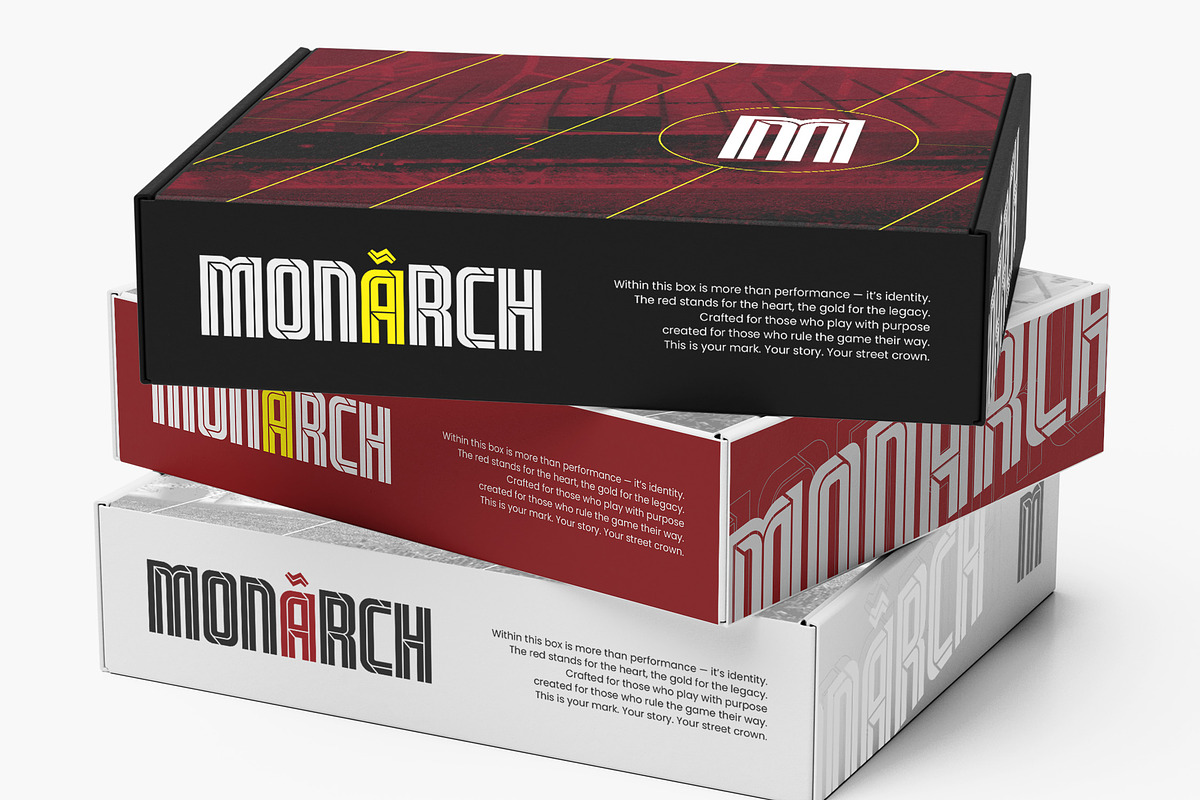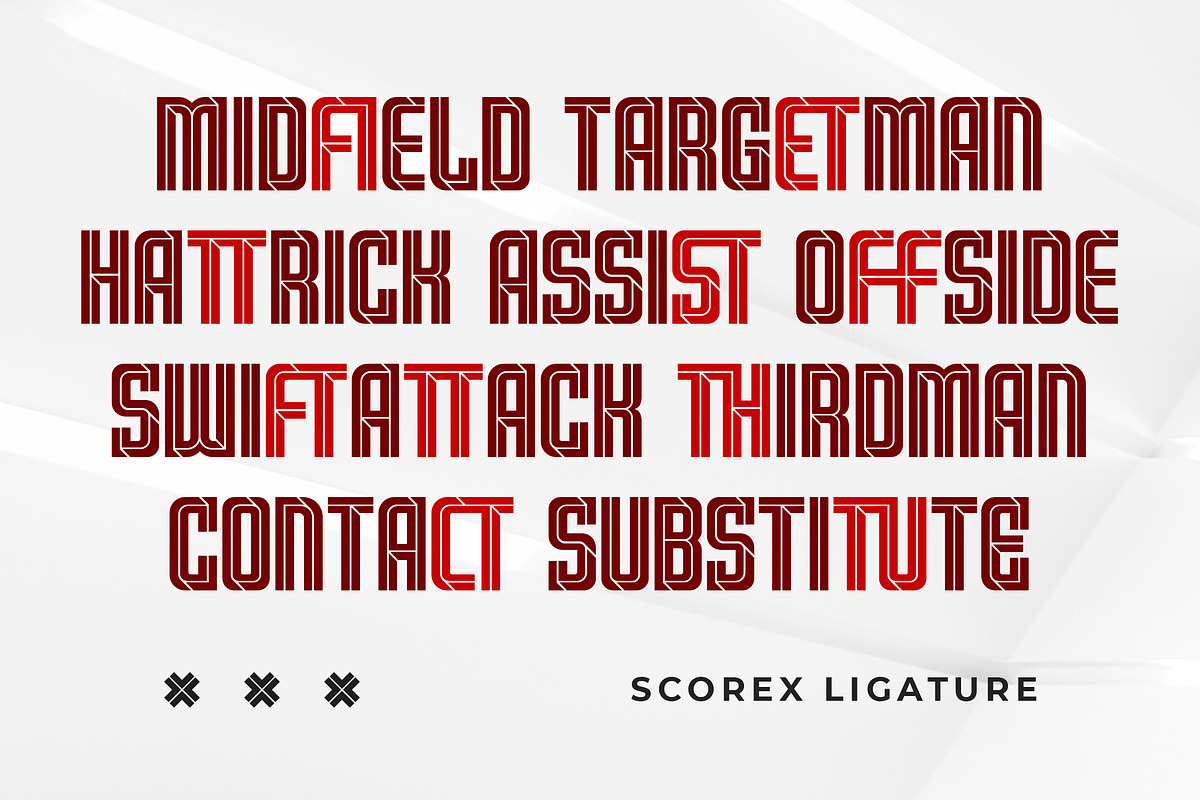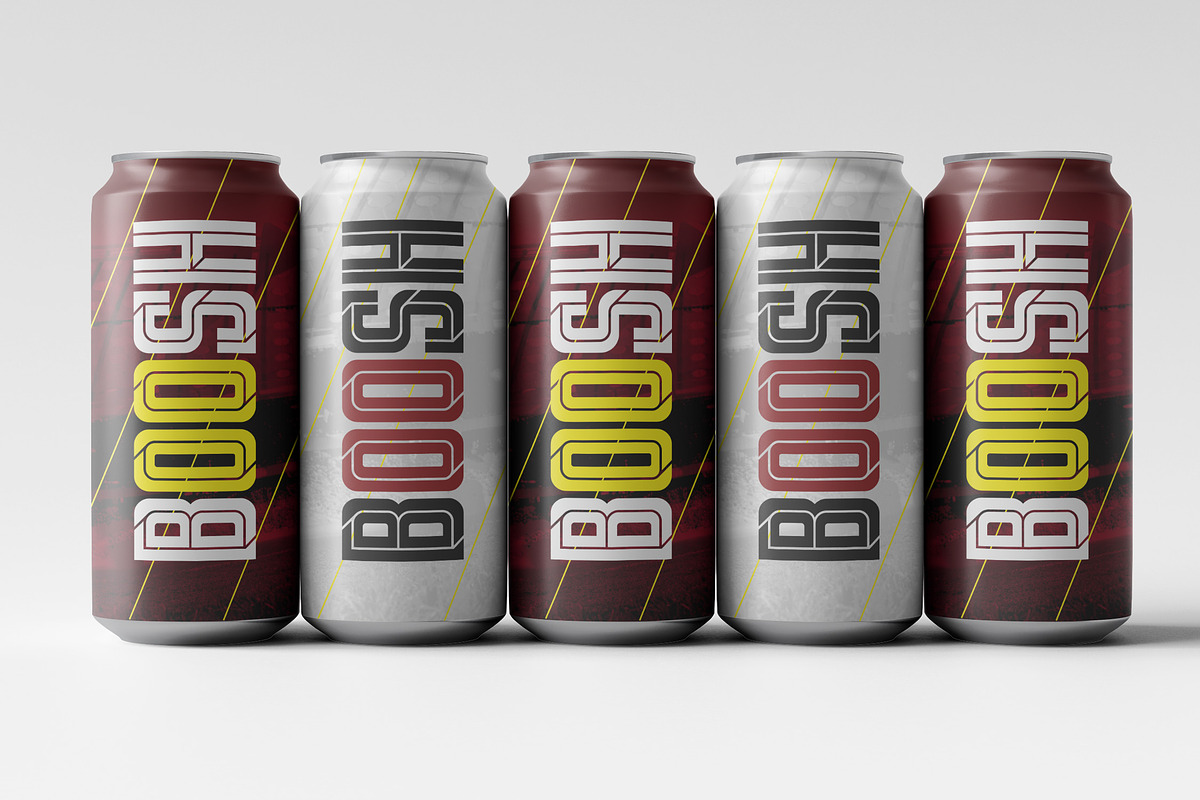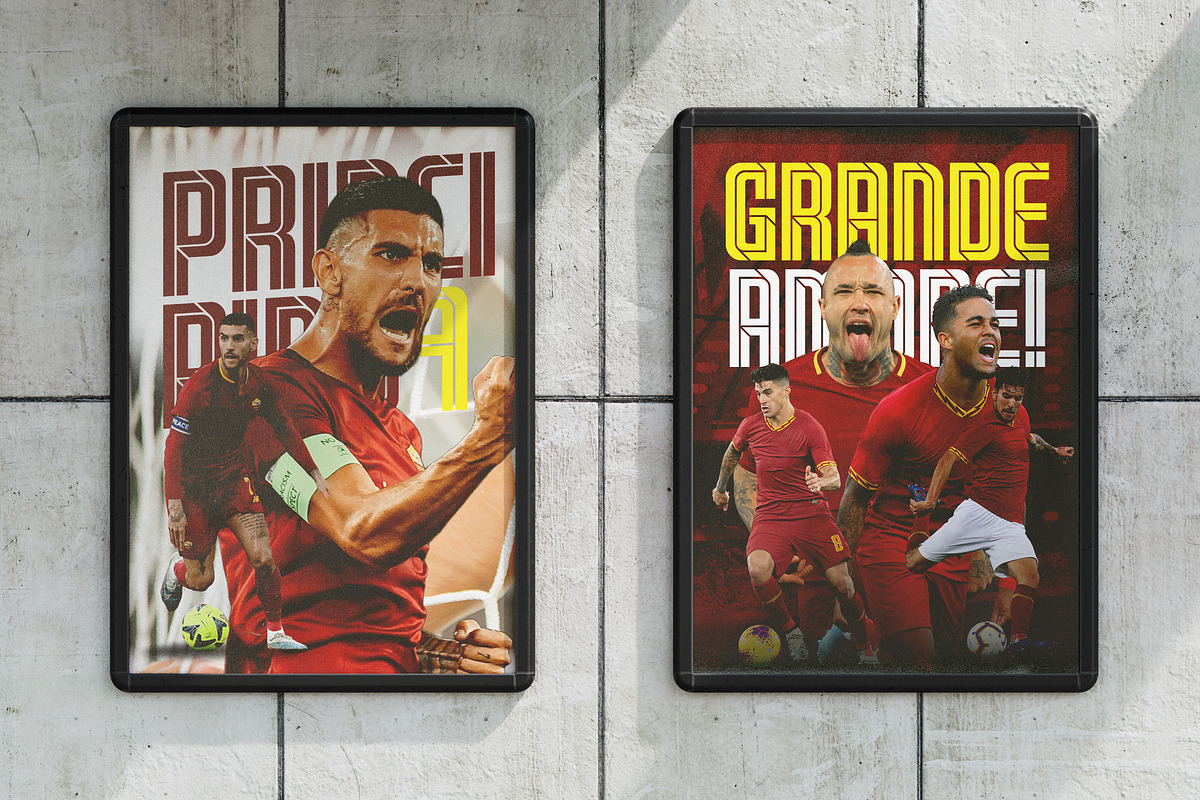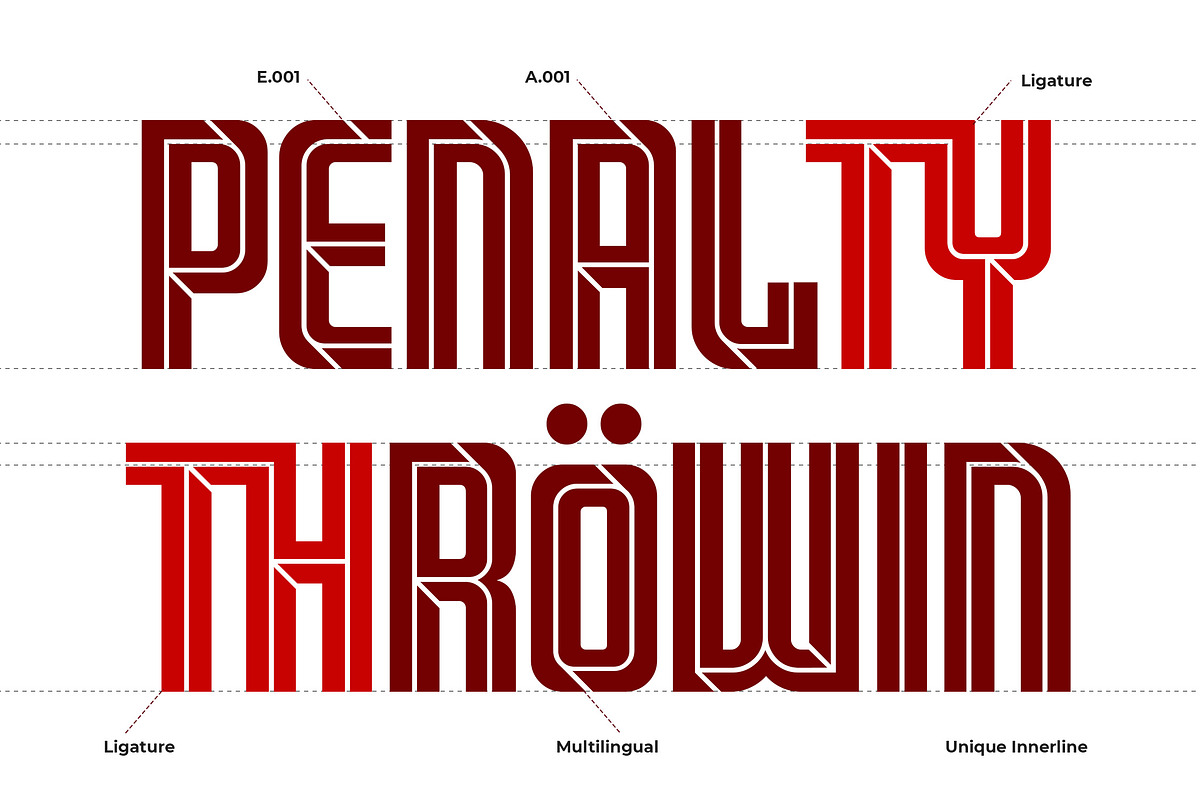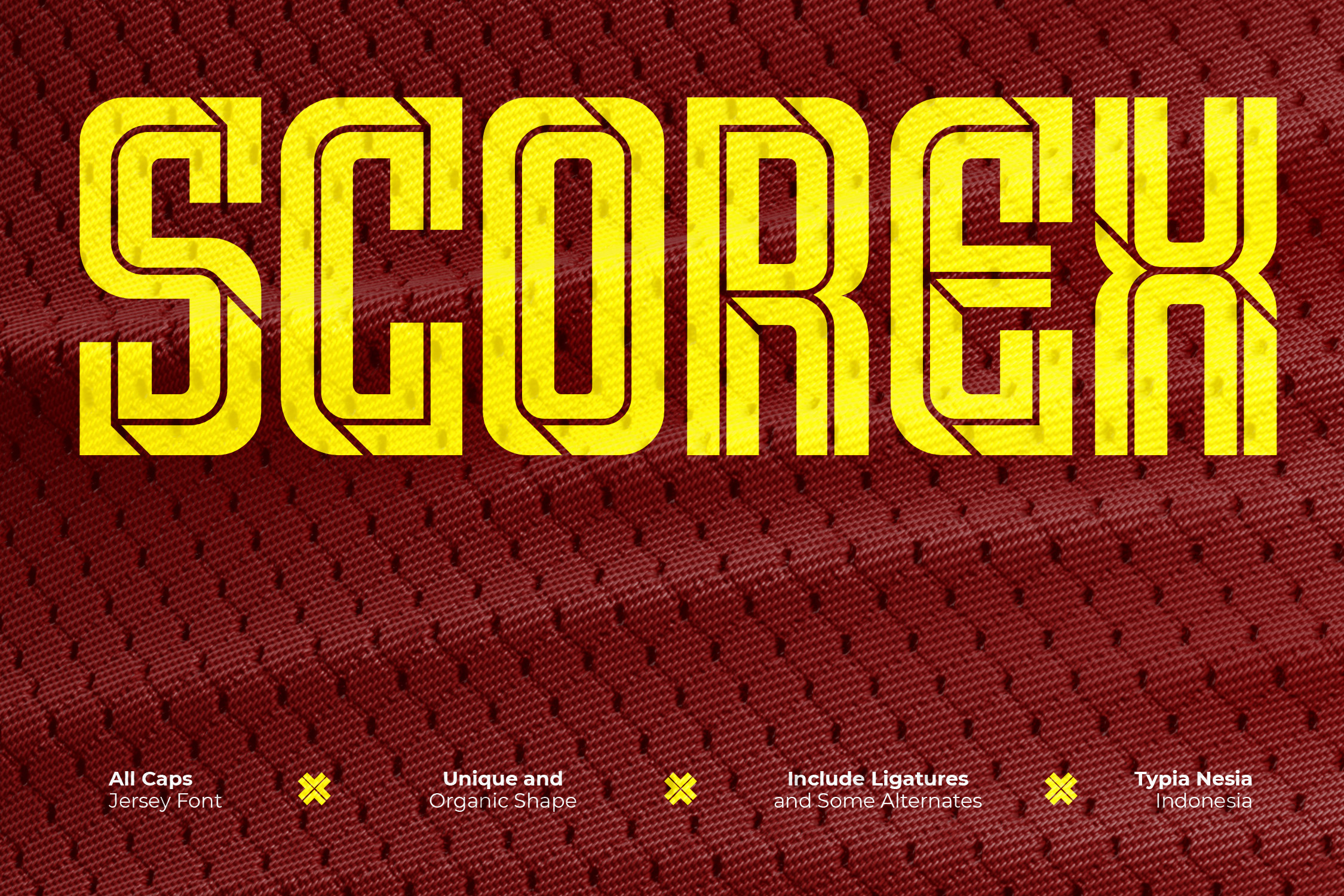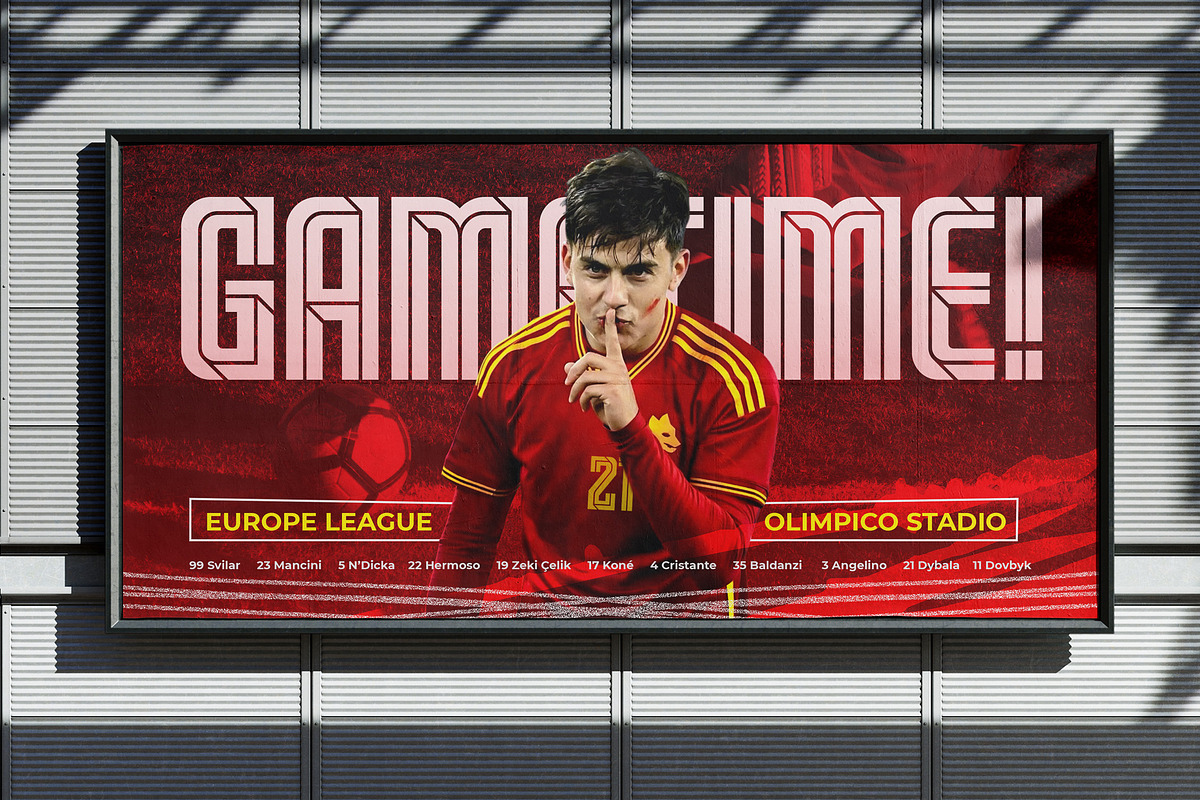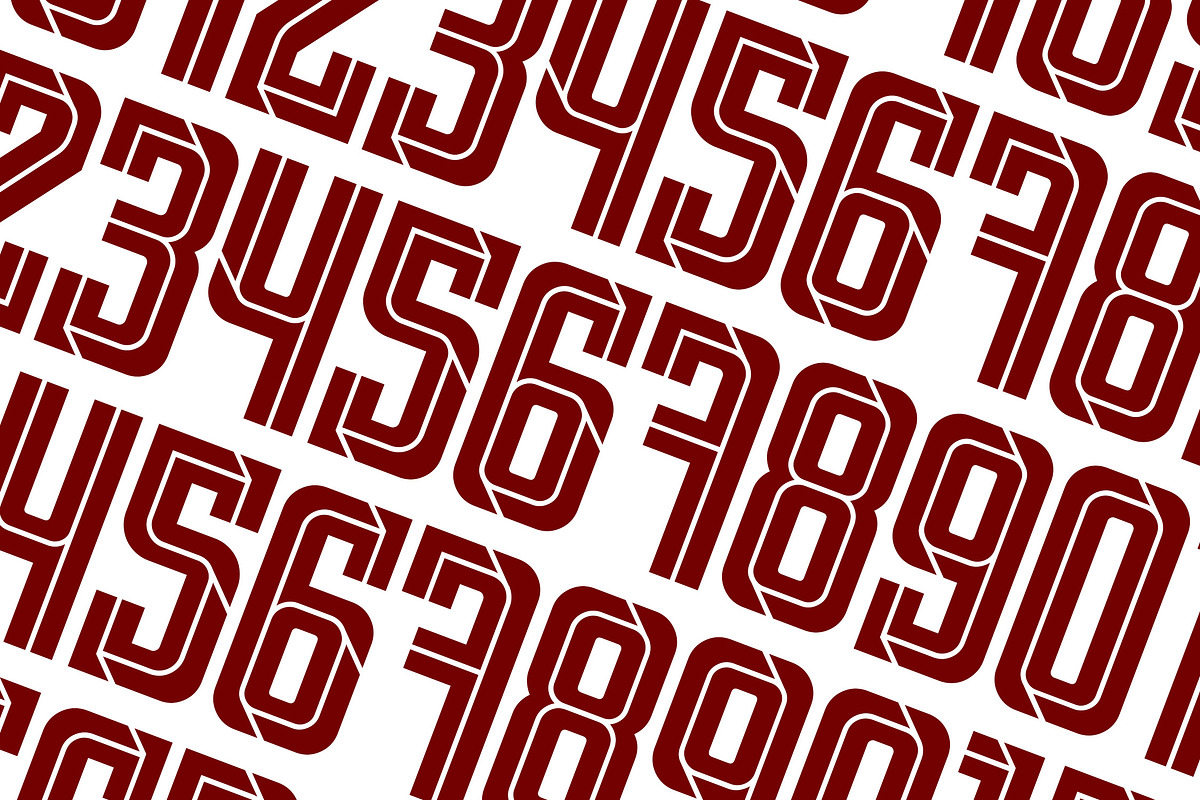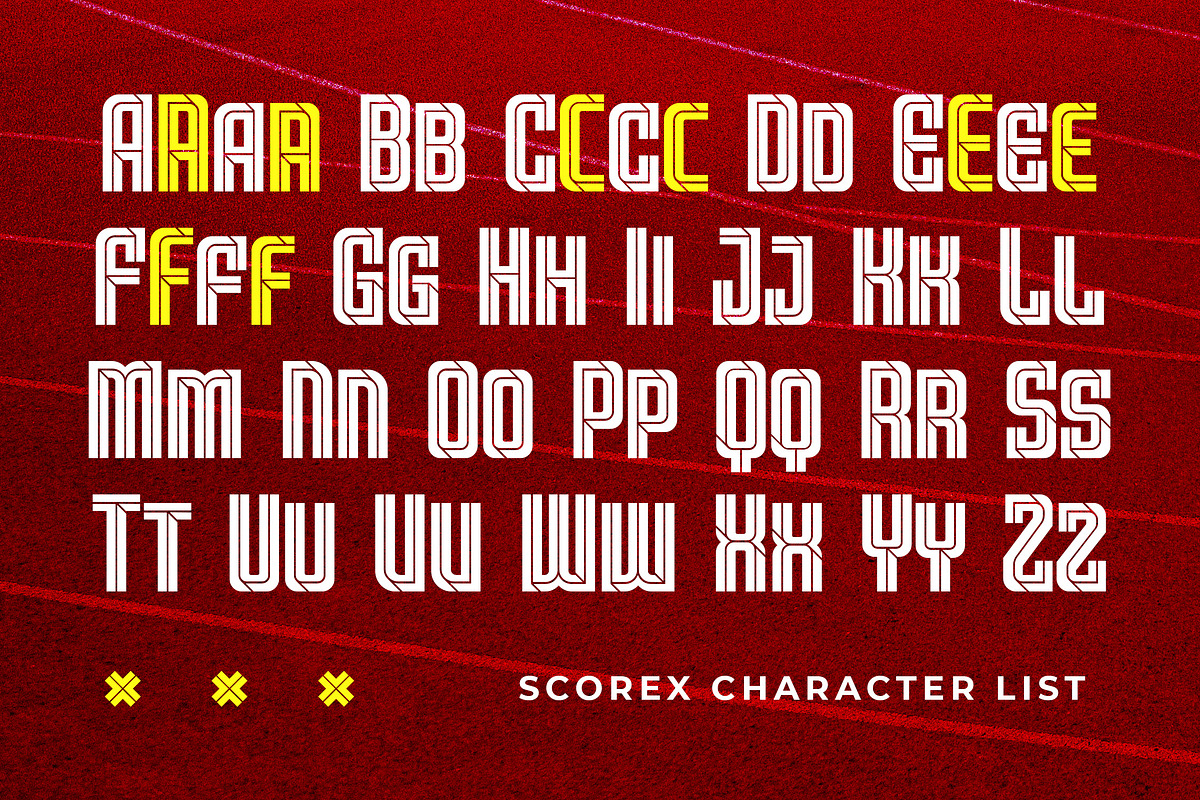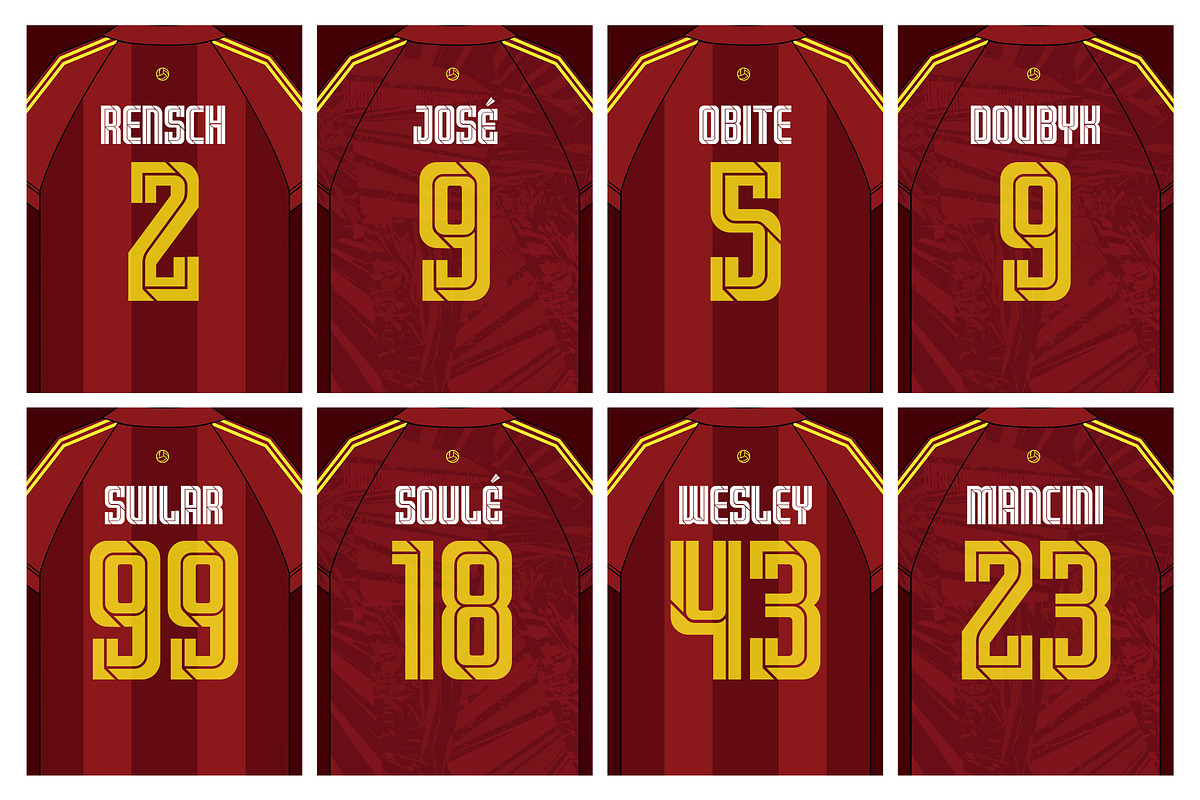
Scorex - Modern Condensed Sport Font
Scorex - Modern Condensed Jersey Sport Logo Font - Bold Tech Game Display Font
Scorex is a Modern Condensed Sport Logo Font that delivers a high-energy, competitive edge to any design. It's exceptionally Bold and Tight, using an ultra-Condensed geometric structure to maximize visual impact in minimal space. The typeface is perfect for modern Tech and Sport branding, Display font for intense athletic or Game themes, Logo designs, Headlines, Poster graphics for fitness, motocross, or urban action themes, vehicle decals, packaging, event graphics, and any projects that require a touch of modern and sport. Scorex is your go-to font when you need a powerful, authoritative look that is bold and modern.